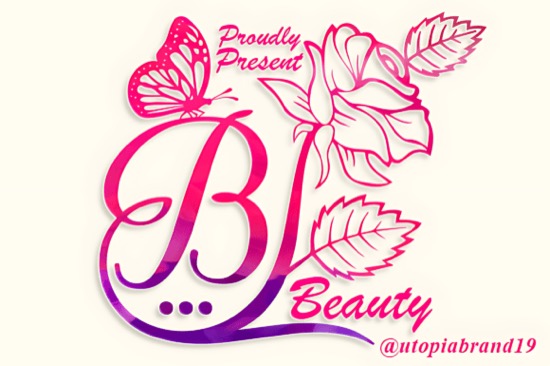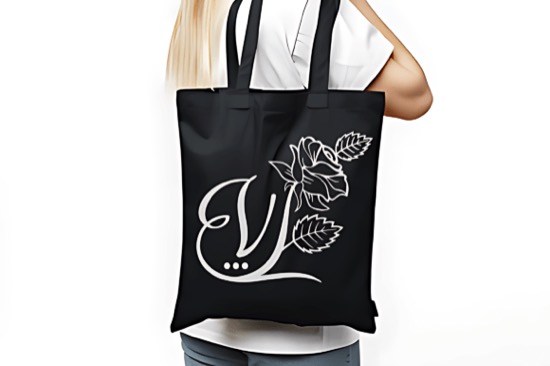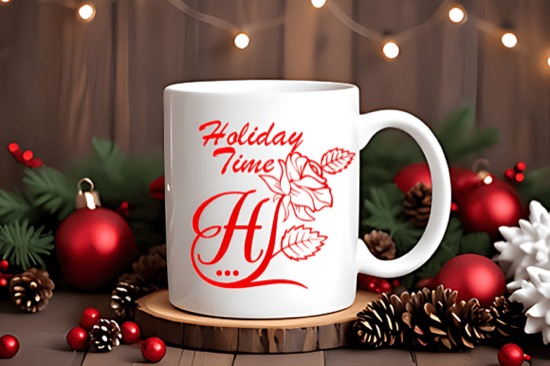
Beauty Flower Monogram is a poetic and harmonious font with vintage and delicate style featuring lovely ornaments. Fall in love with its authentic feel and use it to create gorgeous wedding invitations, beautiful stationary art, eye-catching social media posts, and cute greeting cards.
Beauty Flower Monogram Display Font
Beauty Flower Monogram Font